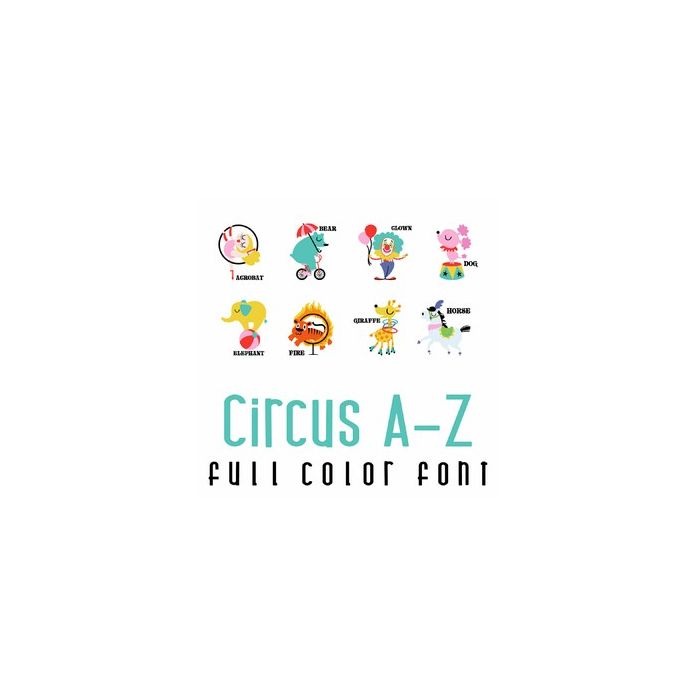
This adorable full color doodlebat font features circus characters from A-Z. Perfect for classrooms, cards, crafts, gifts, decor, scrap book pages, planner stickers and more!